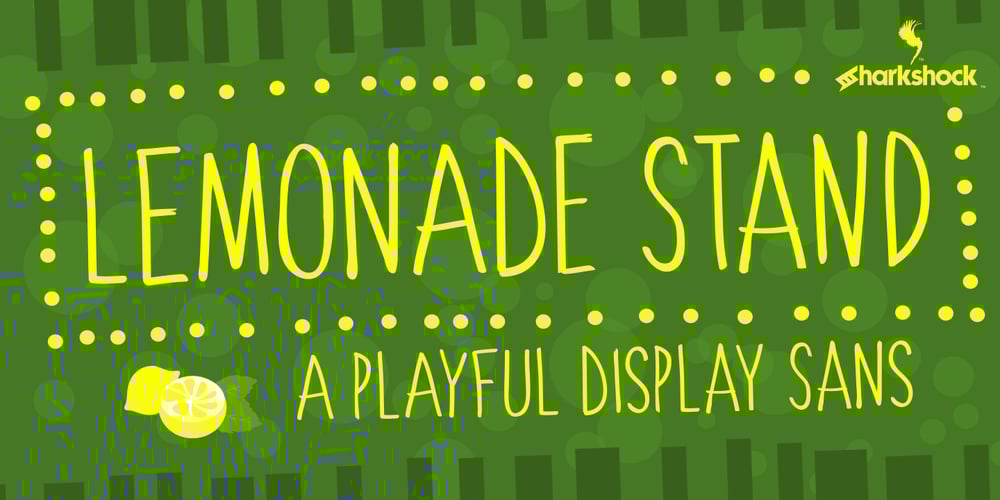
Lemonade Stand Font Family was designed by Dennis Ludlow and published by Sharkshock. Lemonade Stand contains 1 styles and family package options. Looking for the perfect all-caps display font to accentuate your next project? Lemonade Stand is a stylish yet childlike sans that doesn’t take itself too seriously. The characters are wispy in nature with minimal contrast. They were designed to loosely mimic the strokes of a thin paintbrush. Lemonade Stand is equipped with Basic Latin, Extended Latin, diacritics, and Cyrillic. Feature it in a logo, on packaging, or in a children’s book.